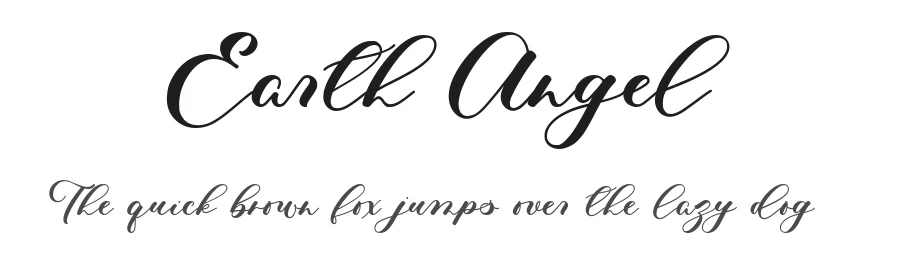
About Wintersnow Font
Wintersnow is a romantic and sweet calligraphy typeface with characters that dance along the baseline. It will add a luxury spark to any design project that you wish to create!
Wintersnow Font is a script font that shines as a display or heading face. Pair it with a clean sans-serif or serif font for body text β the contrast creates a clear hierarchy while the two styles stay balanced and easy to read.